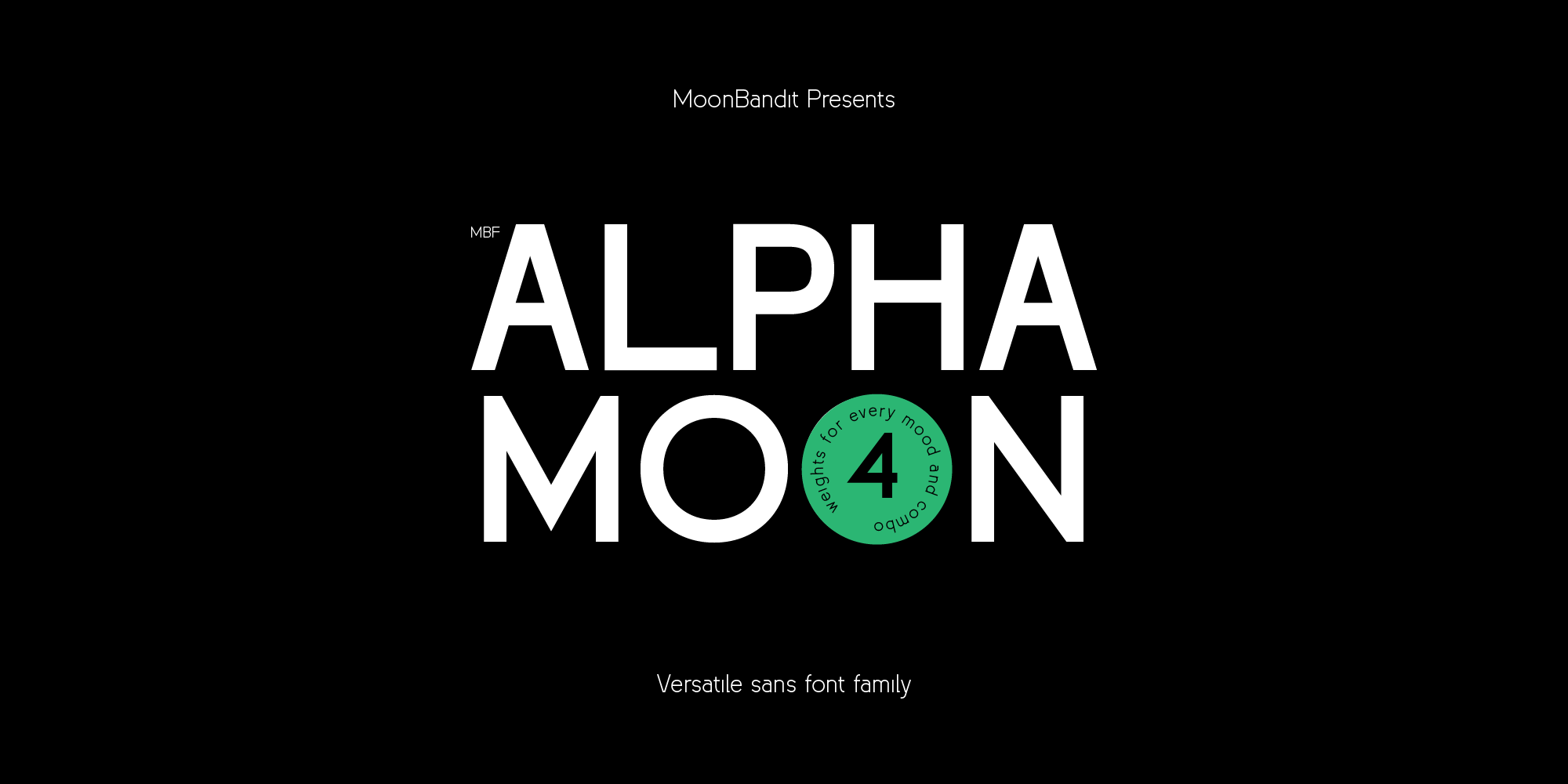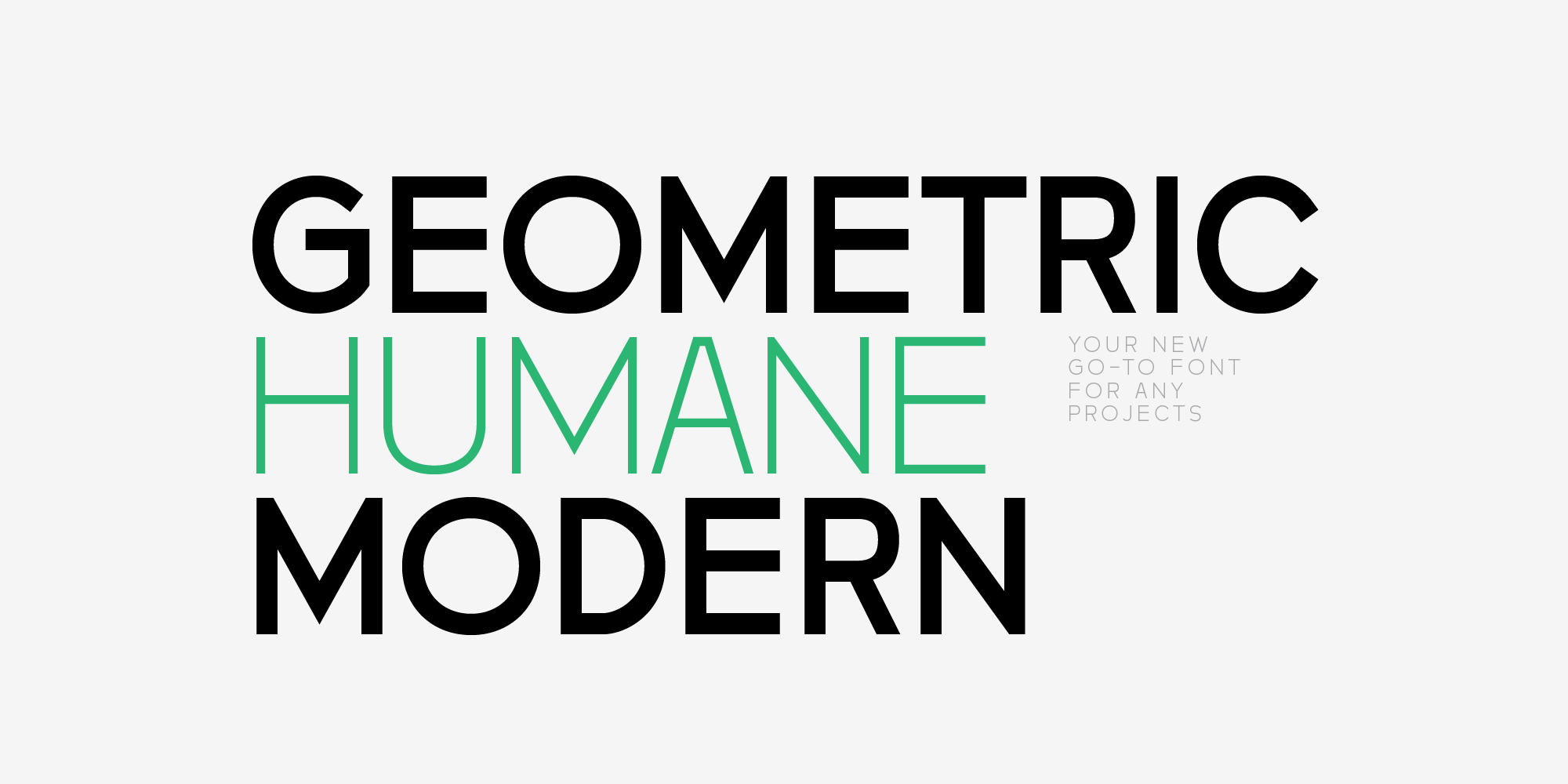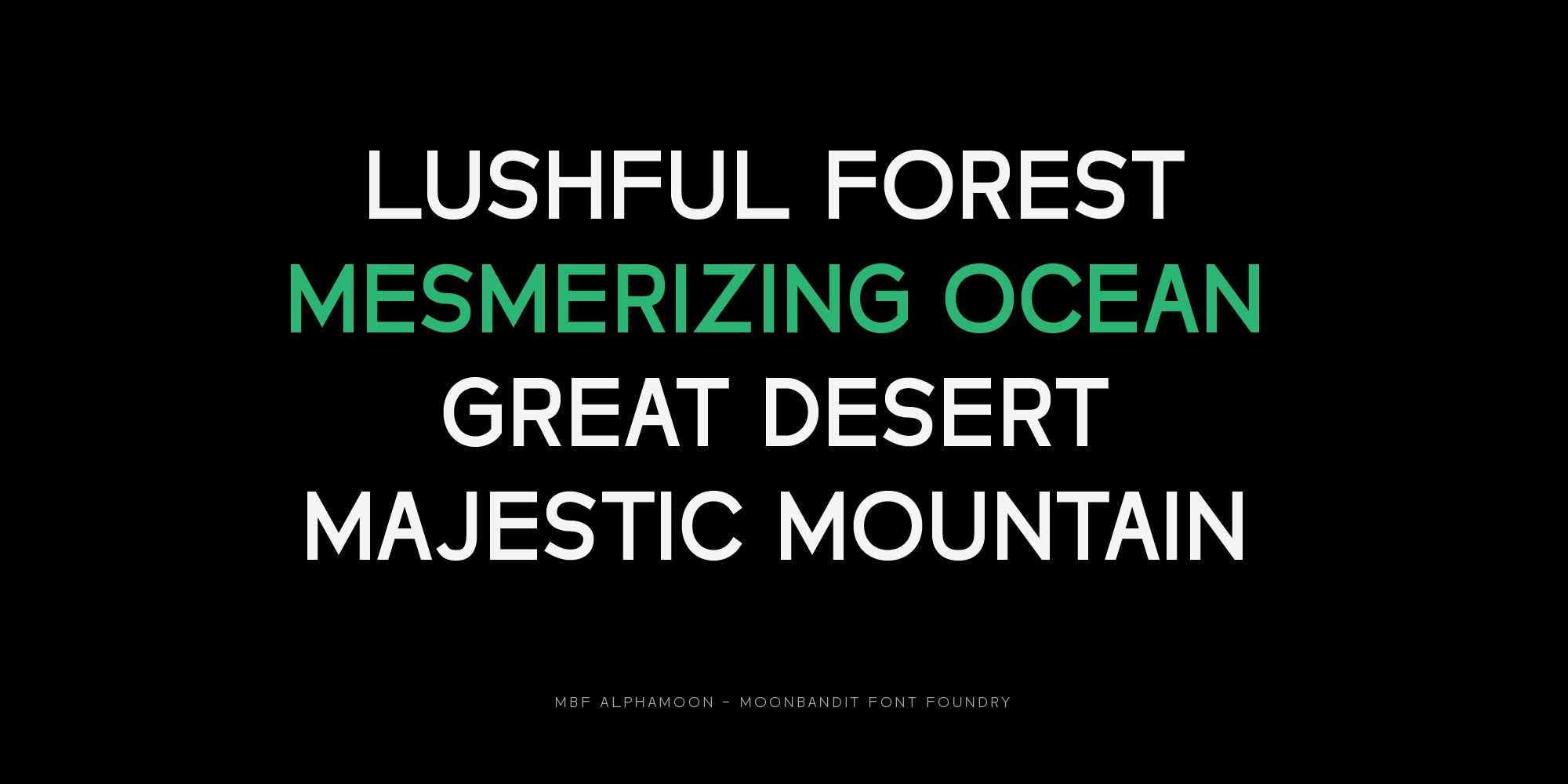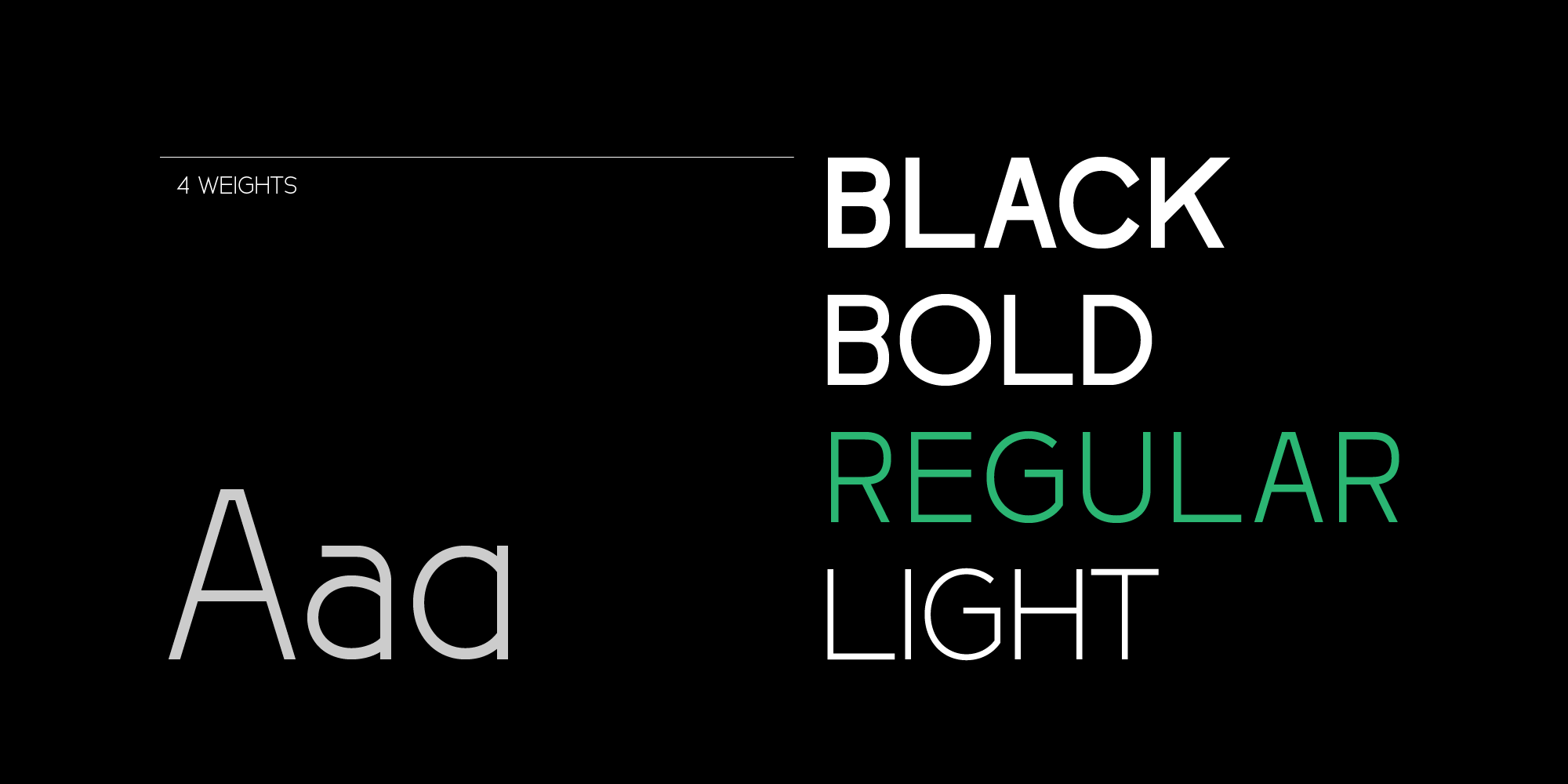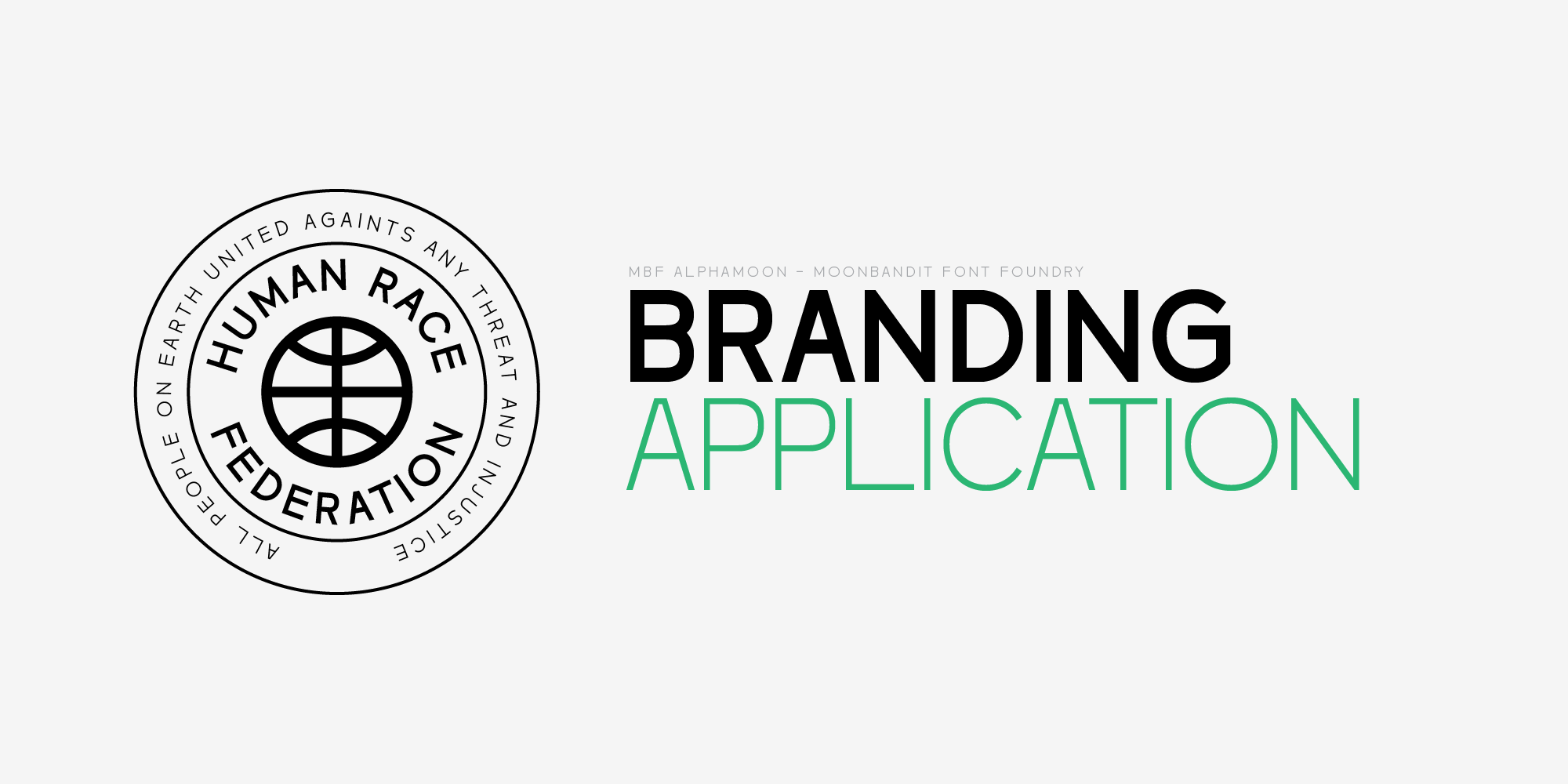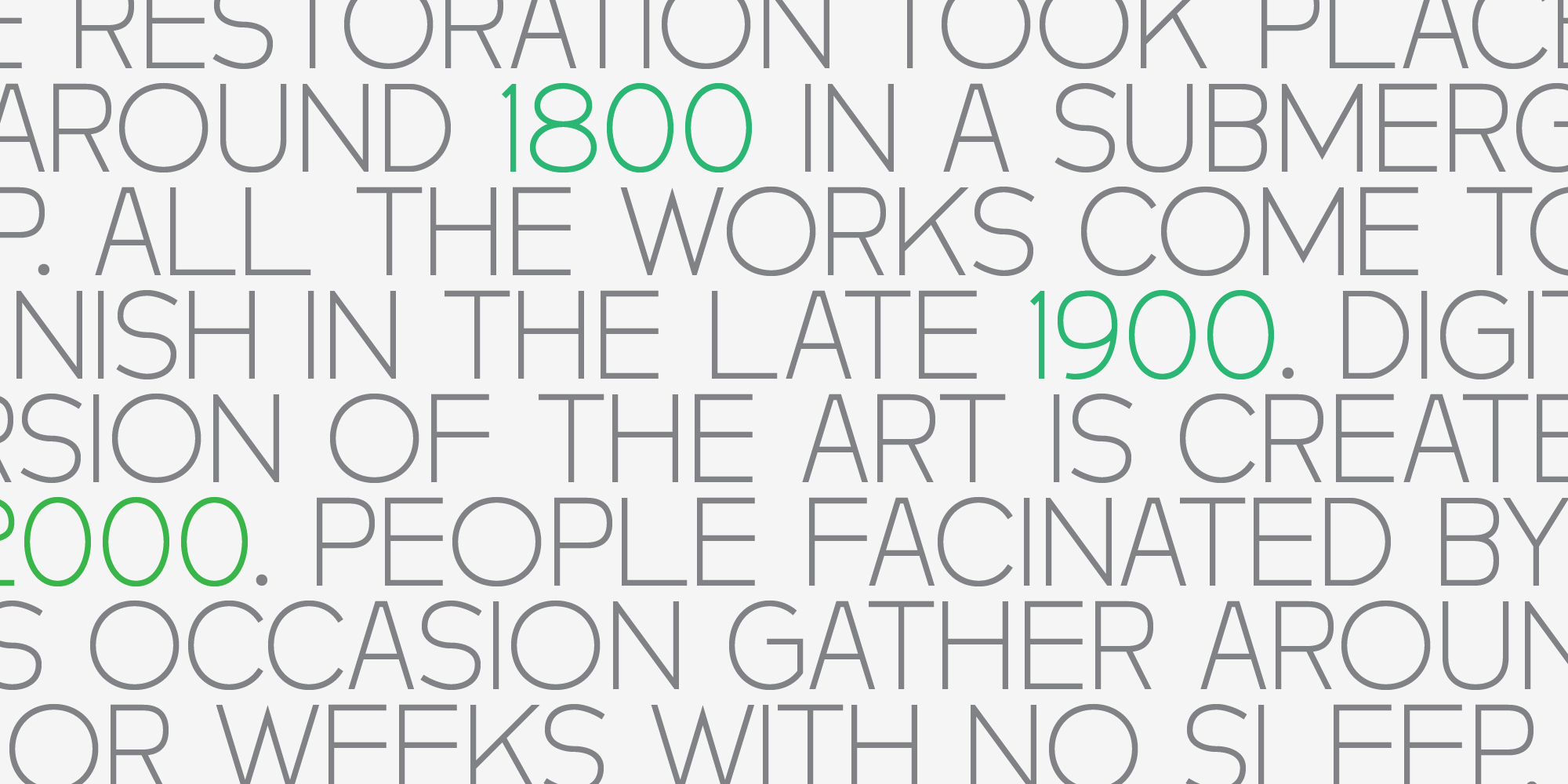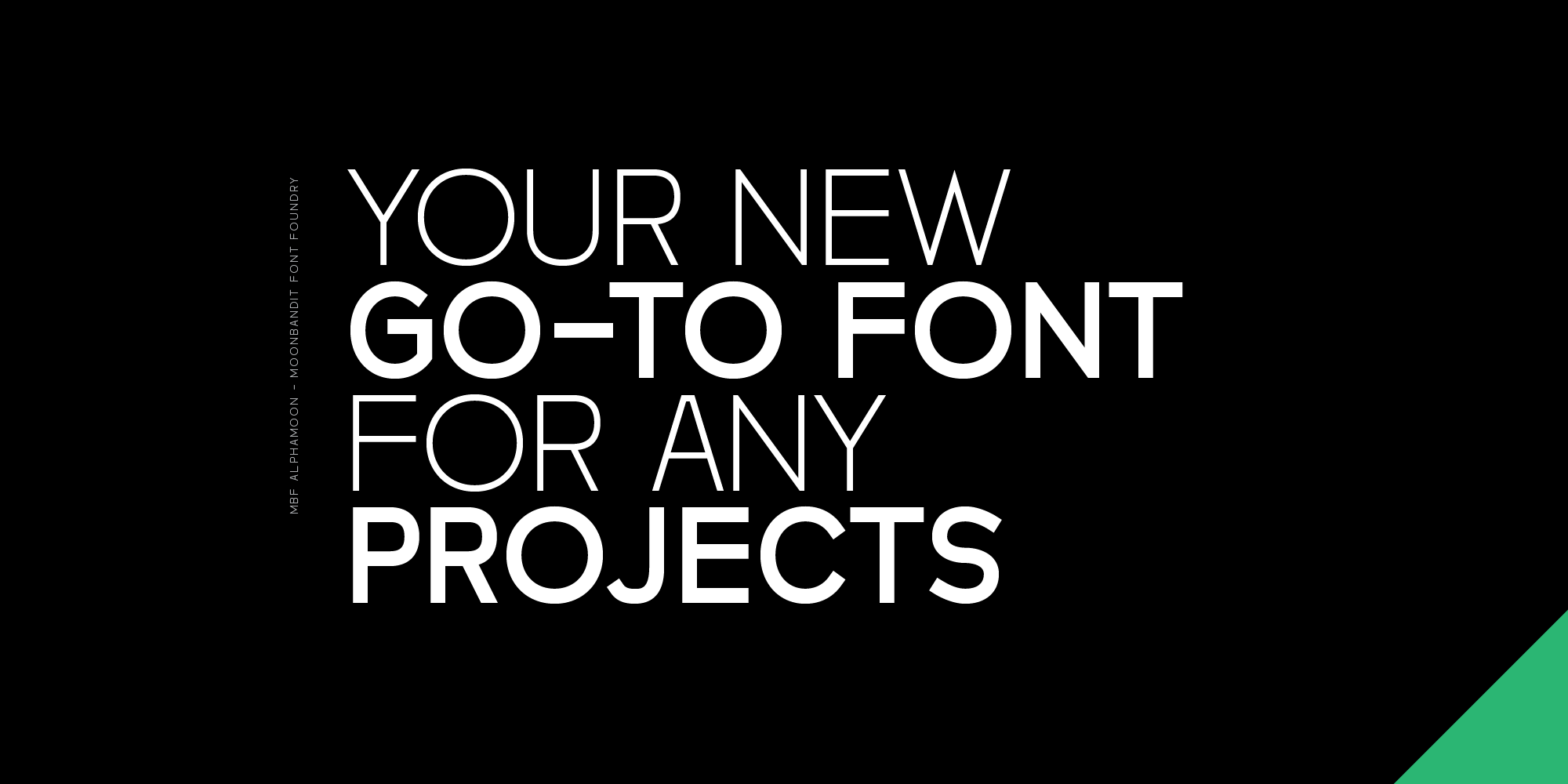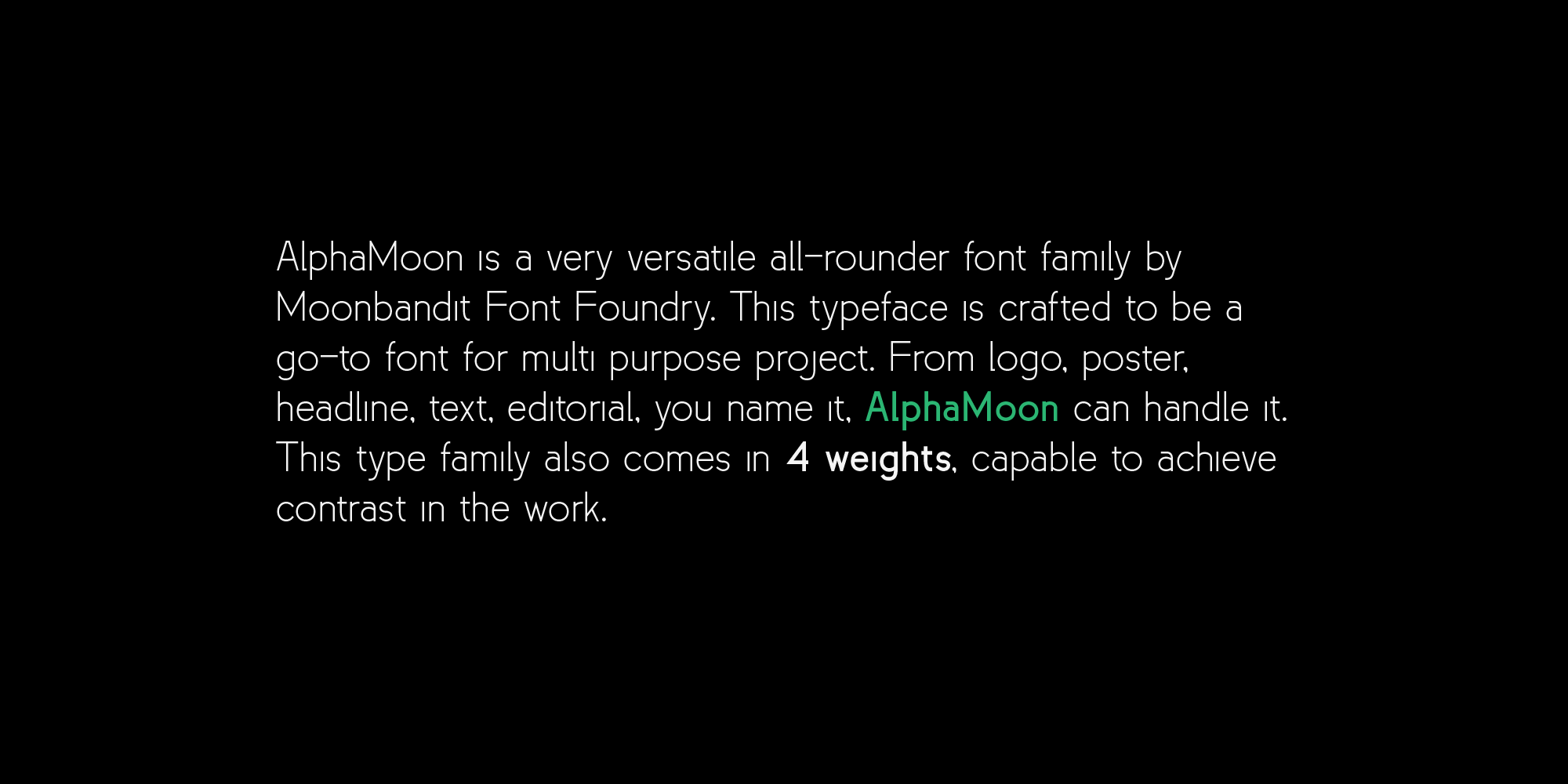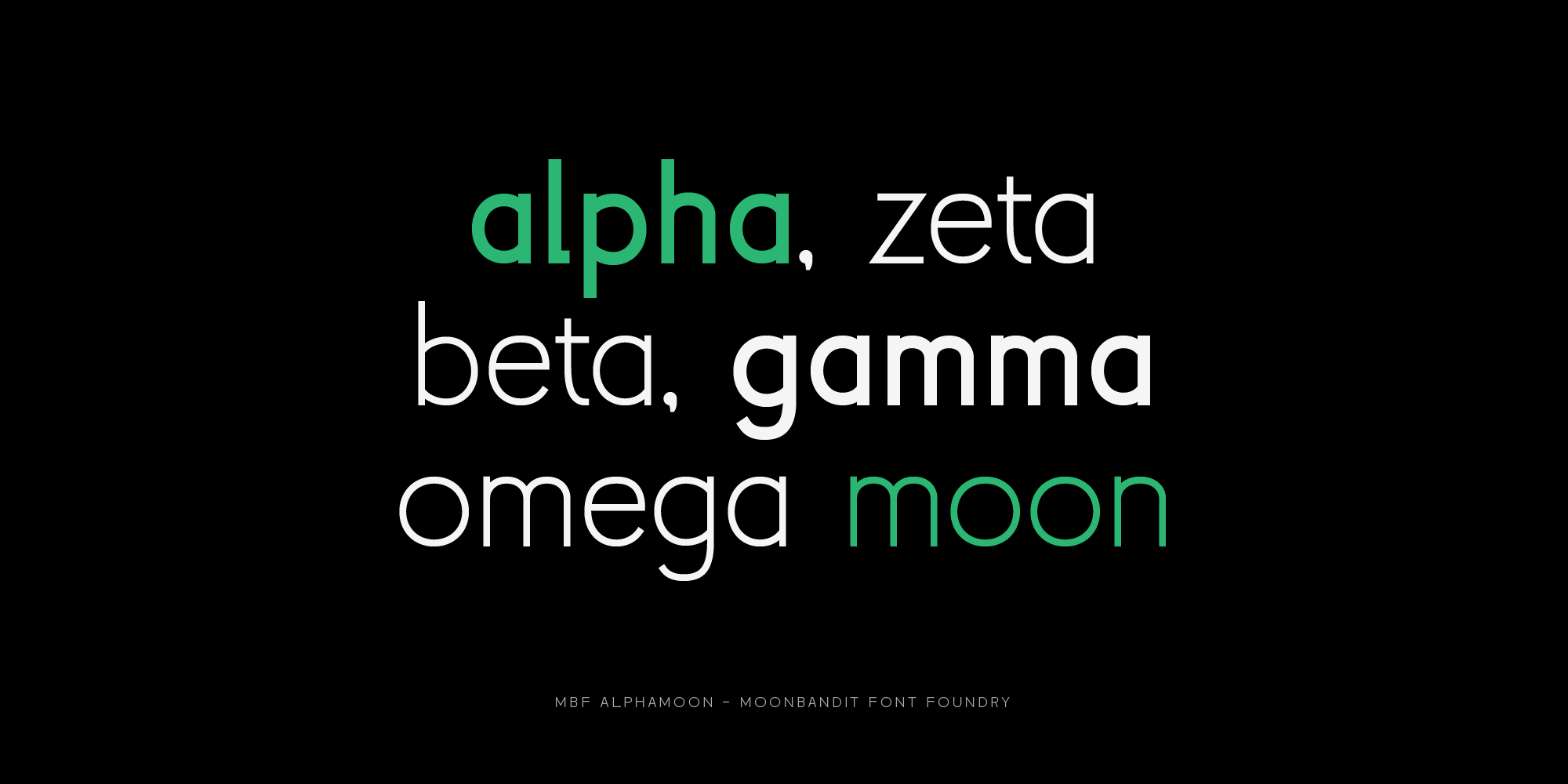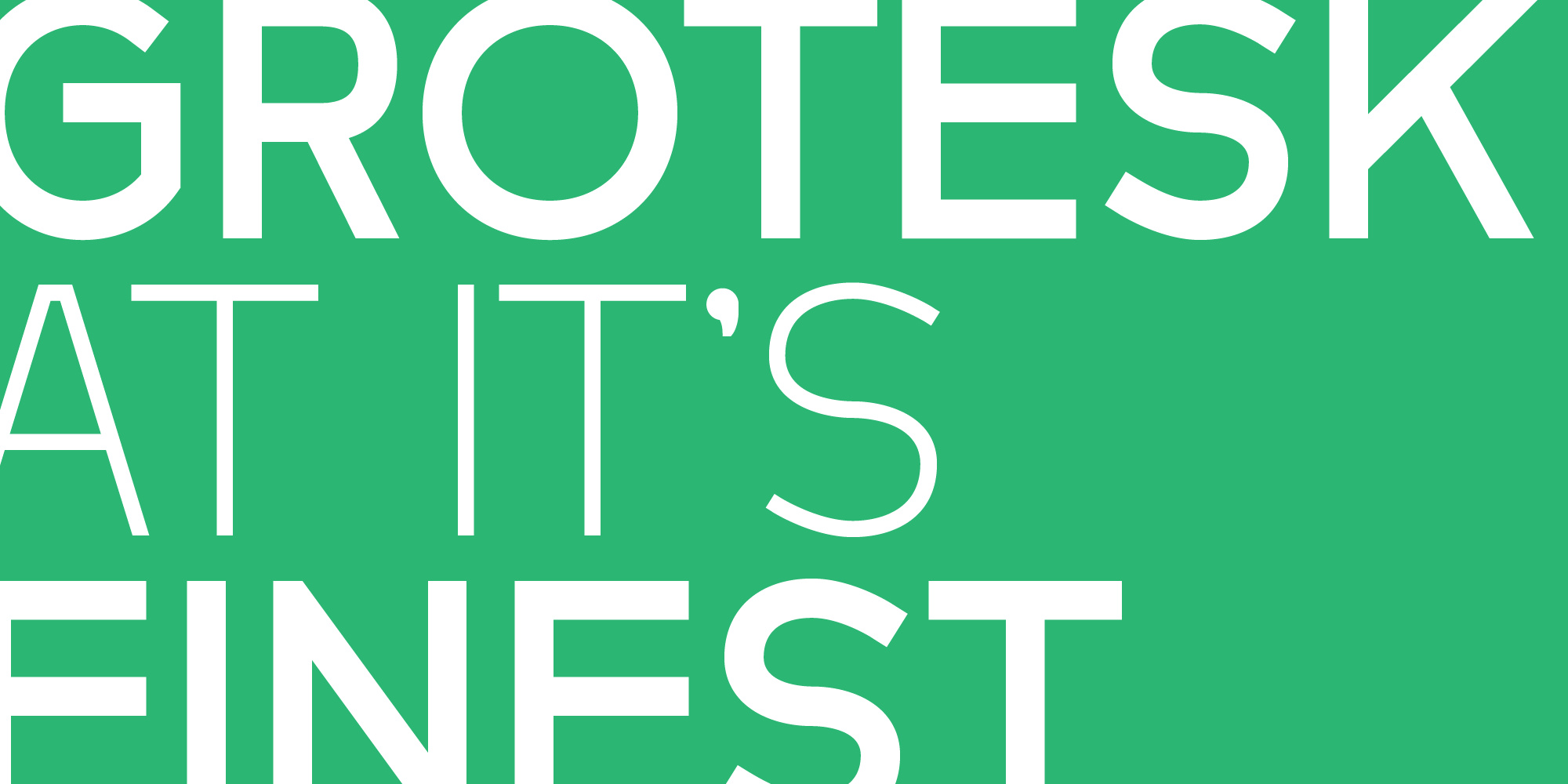
MBF Alphamoon Light
MBF Alphamoon
MBF Alphamoon Bold
MBF Alphamoon Black
AlphaMoon is a very versatile all-rounder font family. This typeface is crafted to be a go-to font for multi purpose project. From logo, poster, headline, text, editorial, you name it, AlphaMoon can handle it. This type family also comes in 4 weights, capable to achieve contrast in the work.
Kerning, Stylistic Alternate